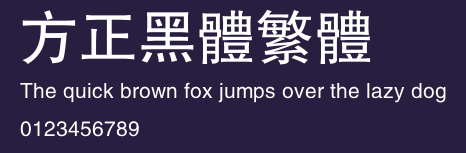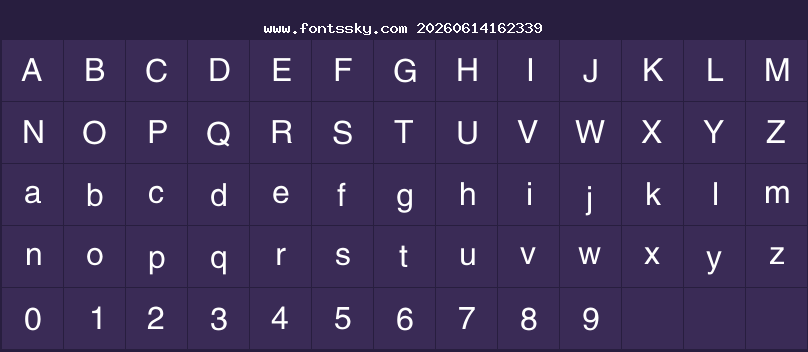
• Font Name: 方正黑体繁体
• Font ID: Founder:方正黑体繁体 Regular
• Full Font Name: 方正黑体繁体
• Version: 3.00
• PostScript Name: FZHTFW--GB1-0
• Character Count: 7789
• Copyright: Copyright(c) Founder Corporation.1999
About 方正黑体繁体.ttf
方正黑体繁体.ttf is a modern, elegant sans-serif font designed for ultimate readability and visual harmony. Perfect for branding, headlines, web design, and print materials.